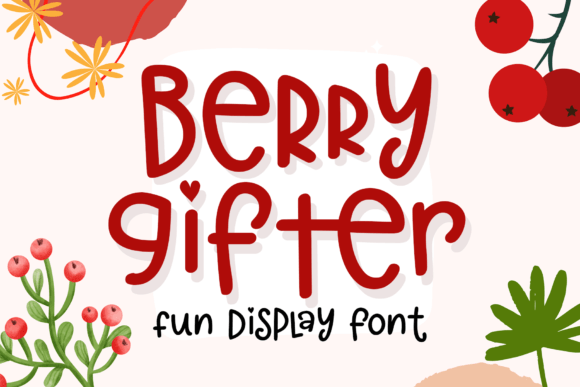
The Sweet Spot: How Berry Gifter Font Can Elevate Your Designs
I still remember the time I was working on a wedding invitation project, and my client asked for a font that was both elegant and playful. I scoured the internet, tried out countless fonts, but nothing seemed quite right. That was until I stumbled upon Berry Gifter. Its flowing letters and sweet vibe instantly won me over, and it’s been a go-to font in my design arsenal ever since.
An Honest Review of Berry Gifter Font
Berry Gifter font has quickly become a favorite among designers, crafters, and creative hobbyists. But what makes it so special? Let’s dive into the good stuff and a few quirks to keep in mind.
What I Love About Berry Gifter Font
- ✨ Unique and sweet look that’s perfect for a variety of design projects
- ✅ Flowing letters that add a touch of elegance and sophistication
- 💕 Highly versatile and can be used for logos, greeting cards, packaging, and more
- 🎉 OpenType features and glyphs that allow for endless creativity
While Berry Gifter font is an amazing addition to any design project, there are a few things to keep in mind:
- ⚠️ May not be suitable for very small font sizes, as some details may get lost
- 🤔 Limited availability of certain characters or glyphs, but this can be worked around with creative solutions
The Story Behind Berry Gifter Font
Berry Gifter font was designed with the intention of creating a unique and sweet look for designers and crafters. The designer, inspired by the beauty of handwritten letters, aimed to create a font that would add a touch of elegance and sophistication to any design project.
Q: What type of projects is Berry Gifter font best suited for?
A: Berry Gifter font is perfect for logos, greeting cards, packaging, brand identity, craft design, DIY projects, book titles, wedding invitations, and more.
Q: Is Berry Gifter font suitable for body text?
A: While Berry Gifter font is beautiful, it’s best suited for headings and titles. For body text, a clearer font may be more suitable.